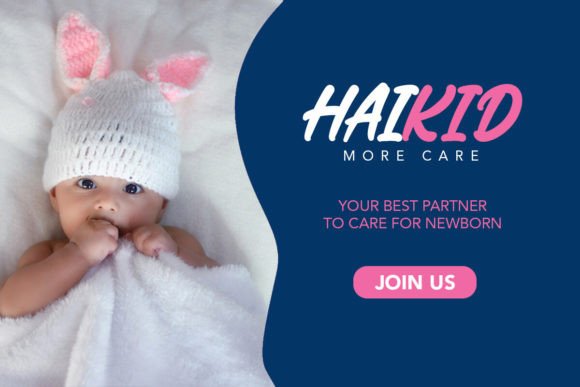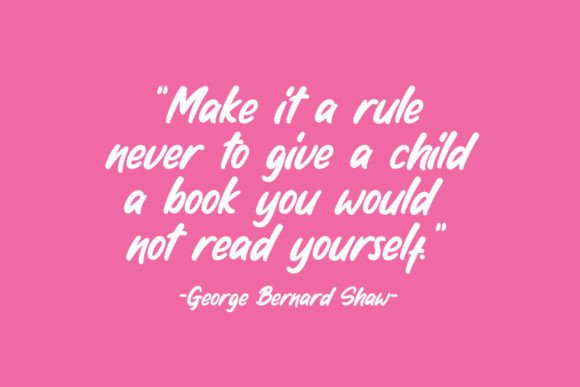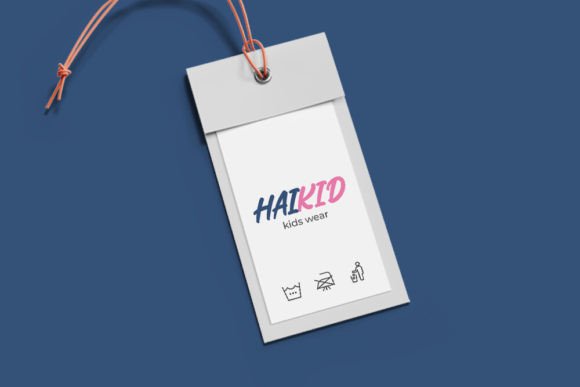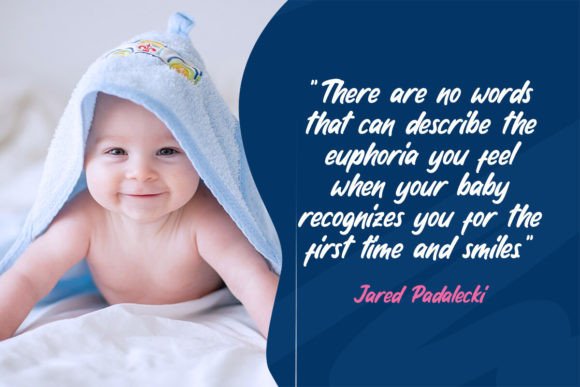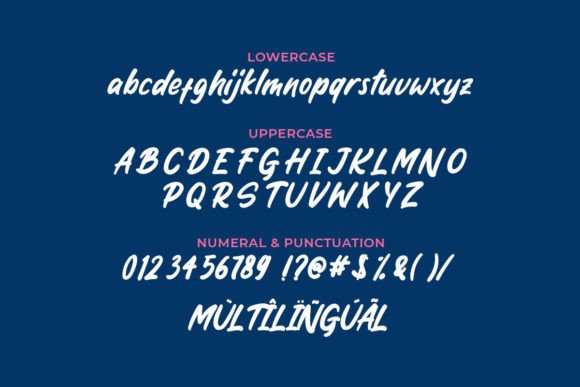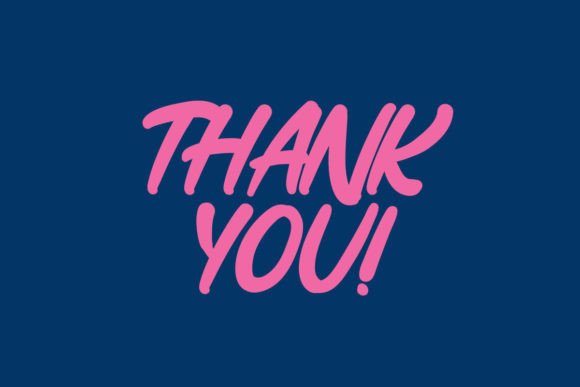
Have you ever been brainstorming a new project, flipping through design ideas, and suddenly, you see it – a unique combination of colors, shapes, and typography that just clicks? That’s what happened when I stumbled upon the Klayang Font. This beautiful handwritten font is more than just a pretty face; it’s a game-changer for designers looking to add a touch of luxury and whimsy to their work.
With its quirky glyphs and hand-drawn feel, the Klayang Font is perfect for anyone looking to add a personal touch to their quotes, logo designs, or social media posts. Whether you’re a seasoned pro or just starting out, this font is sure to bring a smile to your face and a touch of sophistication to your designs.
Klayang Font Key Features
- Font Family: Klayang Font comes in a single font family with multiple styles, including Regular, Bold, Italic, and Bold Italic.
- Character Set: The font supports a wide range of languages, including Latin, Cyrillic, and Greek alphabets, making it suitable for multilingual projects.
- Font Size: The font is designed to be highly scalable, with sizes ranging from 8 to 72 points, and is optimized for use at font sizes between 12 and 24 points.
- Unique Characteristics: Klayang Font features a unique blend of modern and traditional design elements, with subtle rounded edges and a clean, minimalist aesthetic.
Klayang Font Review
As a designer, I was excited to dive into the Klayang Font, and I’m here to share my honest thoughts.
- The Klayang Font has a unique and modern aesthetic that would be perfect for trendy brands or projects.
- The font’s bold and condensed forms make it an excellent choice for headings and titles.
- The font’s legibility is good, even at smaller font sizes, which is a plus for designers who need to use it in various contexts.
- The Klayang Font’s italic and bold styles feel a bit inconsistent with the regular font, which can be jarring to the eye.
- The font’s support for non-English languages is limited, which may be a concern for designers working on multilingual projects.
Overall, the Klayang Font is a solid choice for designers looking for a modern, trendy font. While it has some limitations, its unique aesthetic and good legibility make it a great option for certain projects. However, designers should be aware of the font’s limitations and licensing restrictions before making a final decision.
To get the most out of Klayang Font, use it in combination with other design elements, such as graphics and images. Experiment with different font sizes, colors, and styles to create a unique and visually appealing design. Use the font’s advanced features, such as ligatures and alternates, to add depth and interest to your design.
Klayang Font is suitable for a variety of design projects, including:
- Brand identity and logos
- Editorial and publishing content